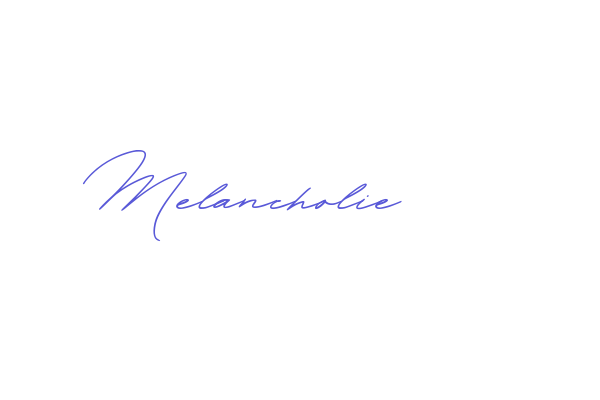
Melancholie is a handwritten script font designed by Anna Markovets. This font family exudes a sense of melancholy with its flowing and elegant style. Ideal for adding a touch of sophistication to invitations, quotes, and branding projects.
Font Name: Melancholie
Designer: Anna Markovets
Category: Handwritten, Script
Font Family: Melancholie